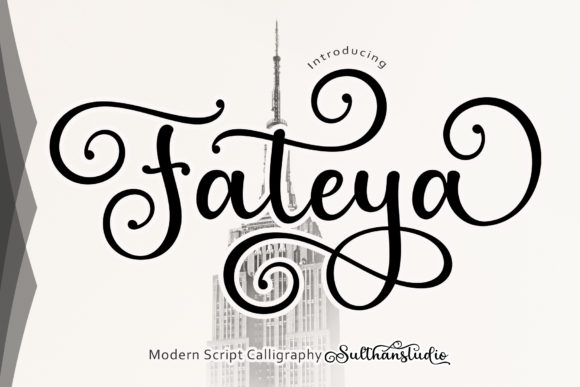
Prepare yourself for the captivating script font that will ignite your creativity and make your designs soar to new heights. Introducing Fateya Font, a masterpiece crafted by Sulthan Studio, designed to unleash the boundless potential of your imagination.
Fateya is not just a font; it's a gateway to a world of captivating scripts and boundless possibilities. With its freestyle design, every letter dances gracefully, inviting you to express yourself with a touch of elegance and flair. The font family offers a symphony of 777 glyphs, empowering you to find the perfect character for every occasion.
Imagine your designs adorned with Fateya's enchanting strokes, transforming logos into works of art, wedding invitations into cherished keepsakes, and t-shirts into canvases for your unique style. Let your creativity flow as you craft letterheads that exude professionalism, signage that demands attention, and labels that whisper secrets of sophistication.
Fateya's versatility knows no bounds. It's the perfect muse for crafting eye-catching news headlines, posters that ignite imagination, badges that make a statement, and so much more. With Fateya, your designs will transcend the ordinary and become extraordinary, leaving an unforgettable impression on every beholder.
Whether you're a seasoned designer or just starting your creative journey, Fateya Font is your key to unlocking a world of endless possibilities. Its user-friendly nature makes it accessible to all, empowering you to turn your design dreams into tangible realities.